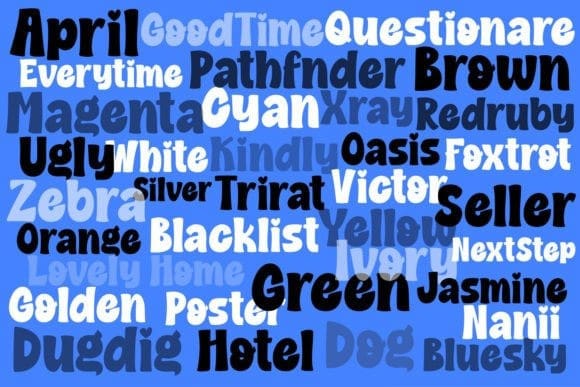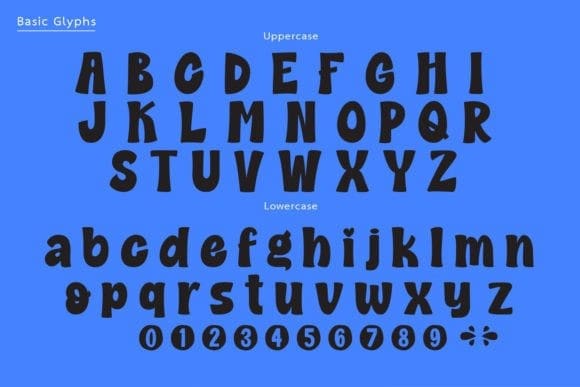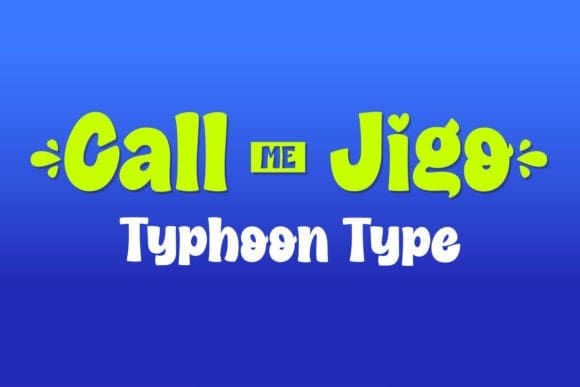
Call Me Jigo Font
Call Me Jigo Font is a charming and modern font with a playful handwritten style. The characters are designed with a rounded, bold look that ensures they are easy to read and visually pleasing.
Each lowercase letter also comes with an alternative option (PUA encoded), where the letter is contained within a solid square frame, adding a unique decorative touch. This feature makes “Call me Jigo” perfect for enhancing transitions between words, giving your text a more distinctive and captivating look.
With its combination of readability and creative flair, “Call me Jigo” is ideal for a variety of advertising and promotional projects, adding both style and personality to your designs.